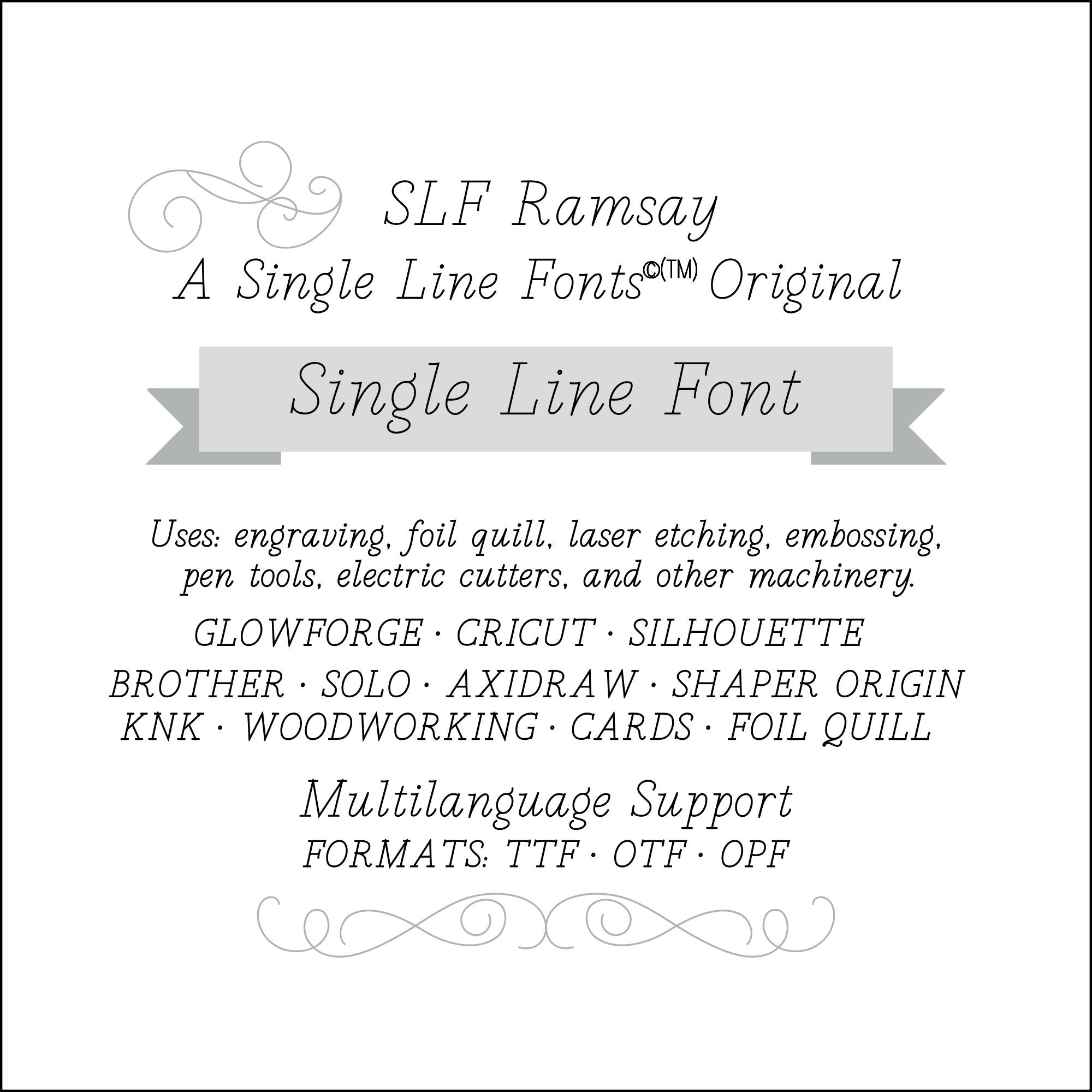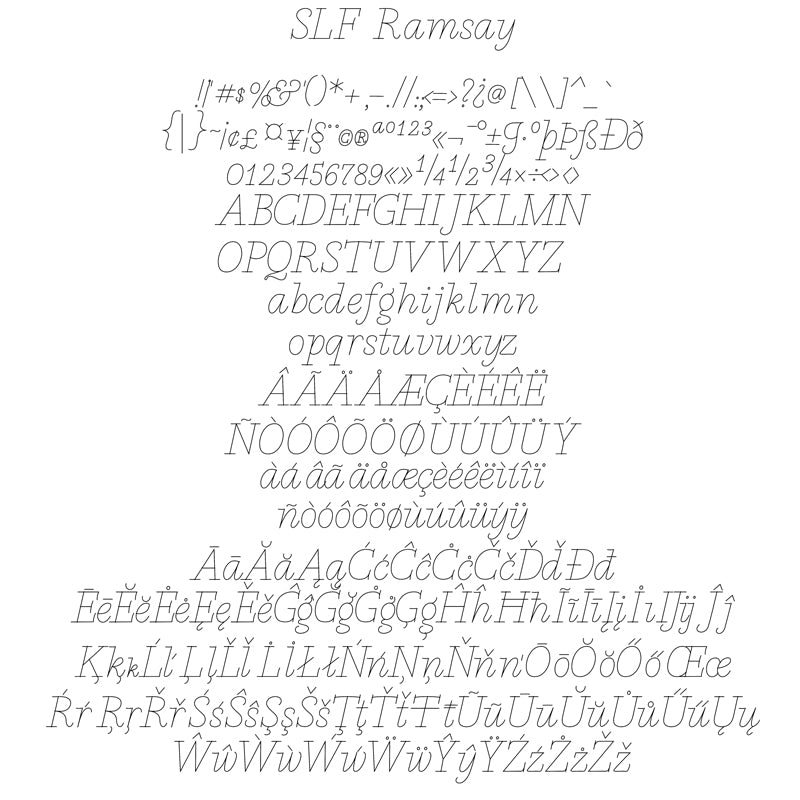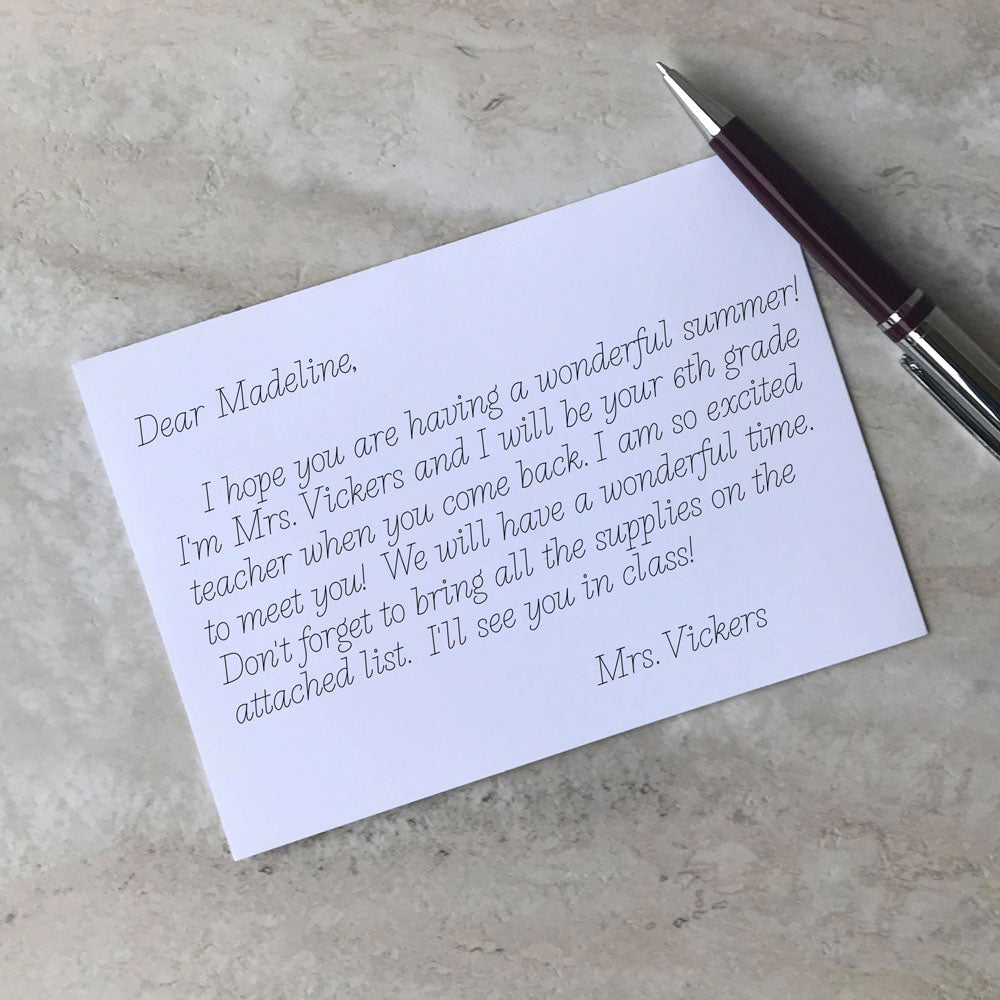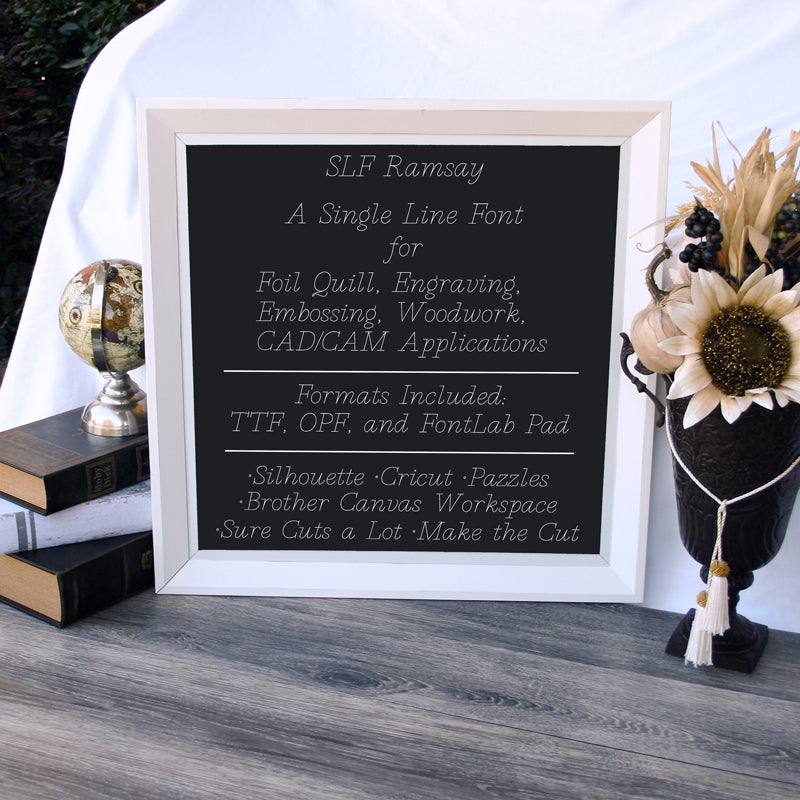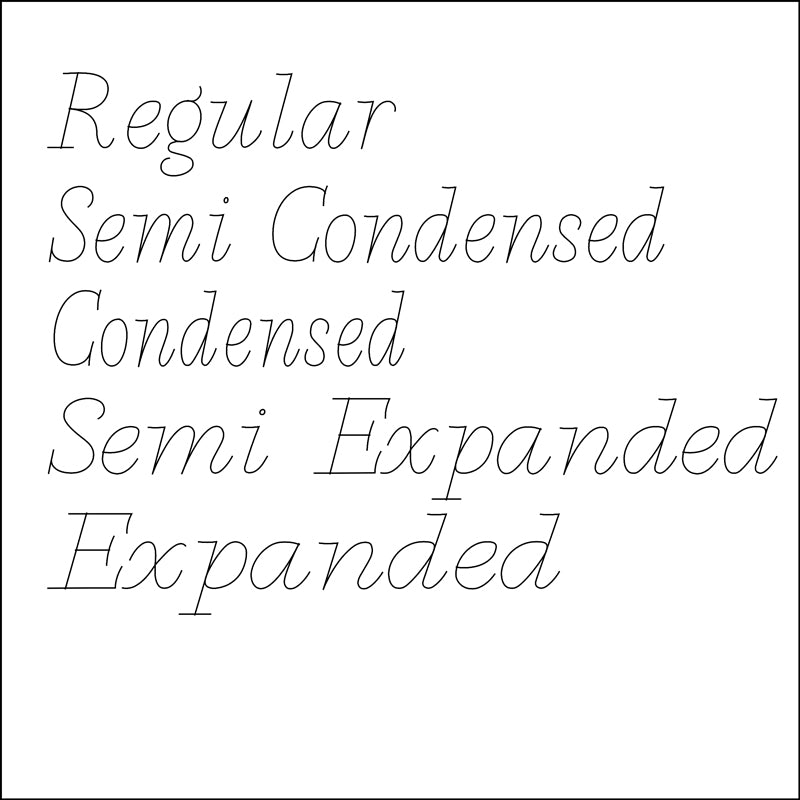
Single Line Font "SLF Ramsay" With Five Widths
Italic Style With A Flair
SLF Ramsay is a print italic font with a flair.  This font has the following styles:
Regular
Semi Condensed
Condensed
Semi Expanded
Expanded
It’s appropriate for both dressy and casual uses. You’ll have crisp results for your cardmaking, foil quill, engraving, Glowforge, and other crafting projects.